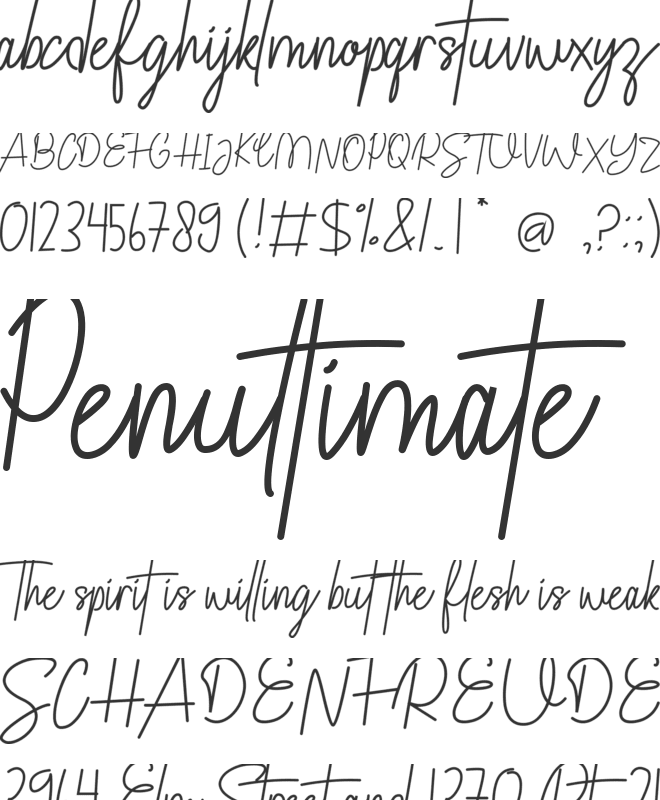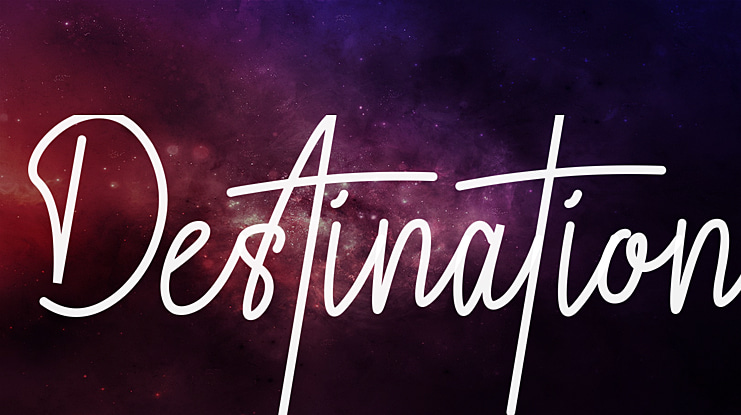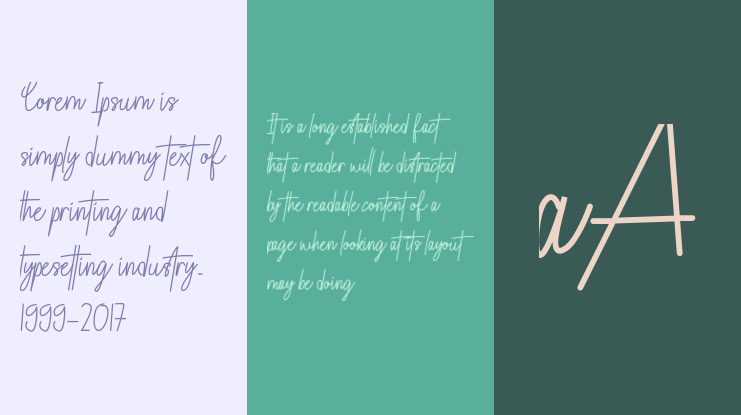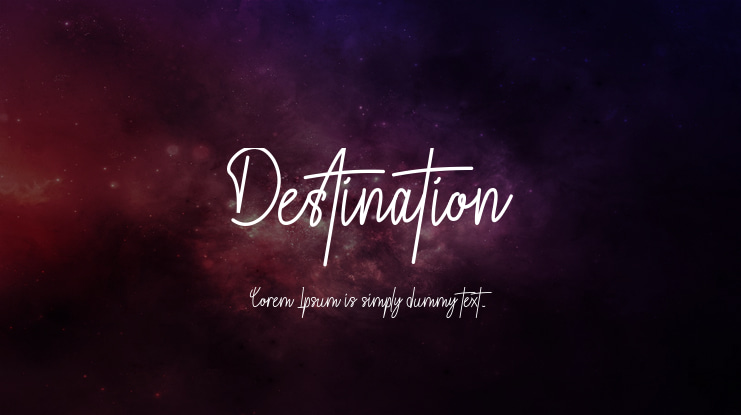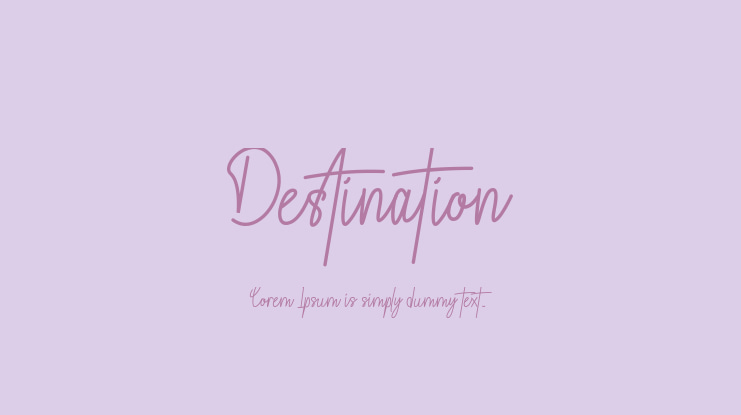
Destination Font
Destination is a delicate and elegant handwritten font. Its distinct and well balanced letters make this font a masterpiece. Fall in love with its incredibly versatile style and use it to create spectacular designs!